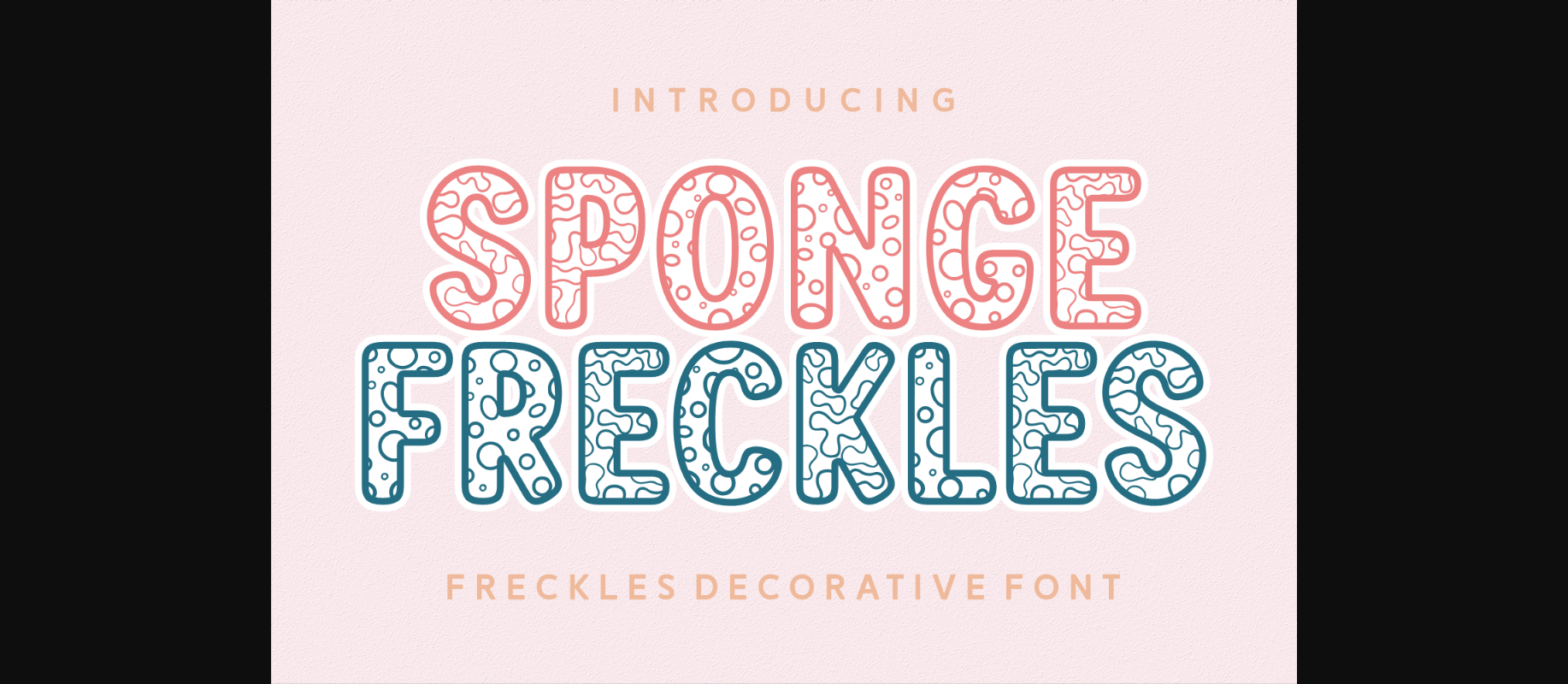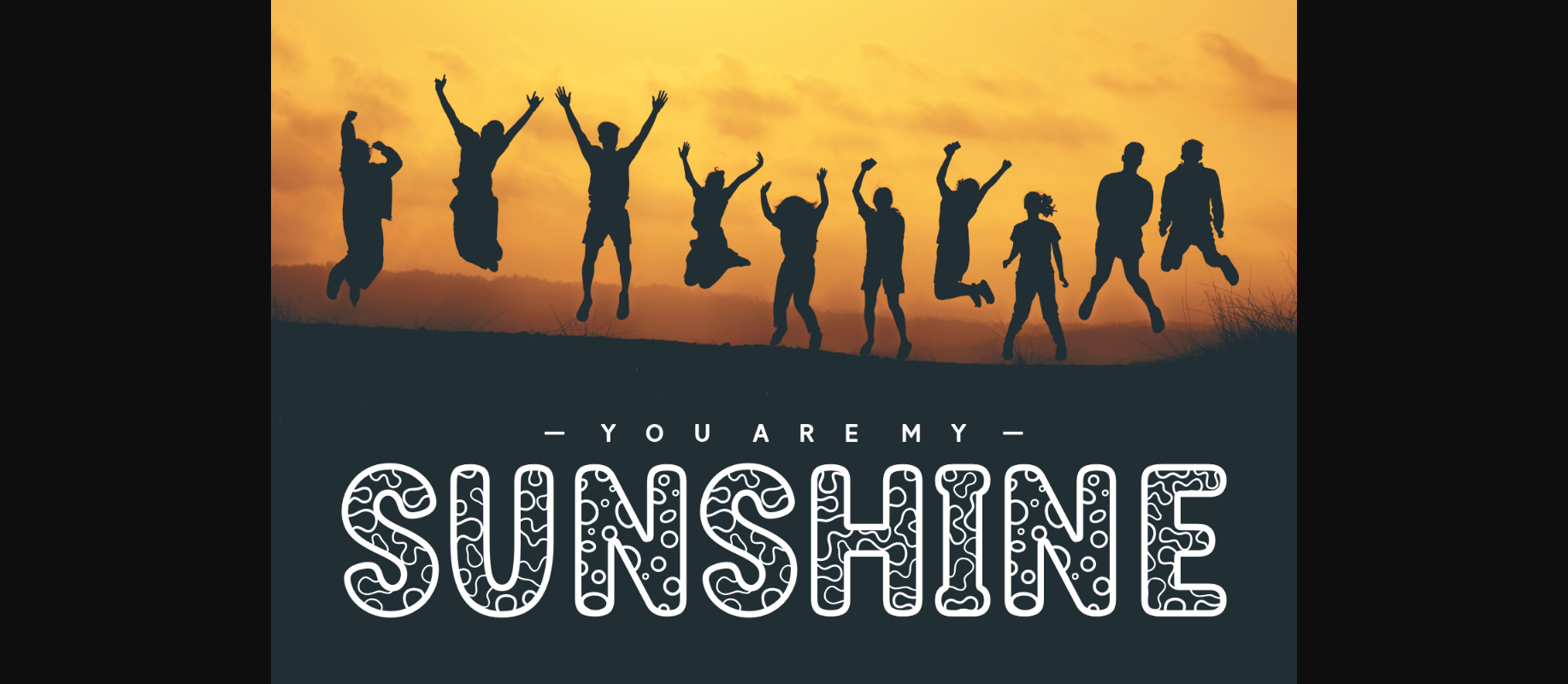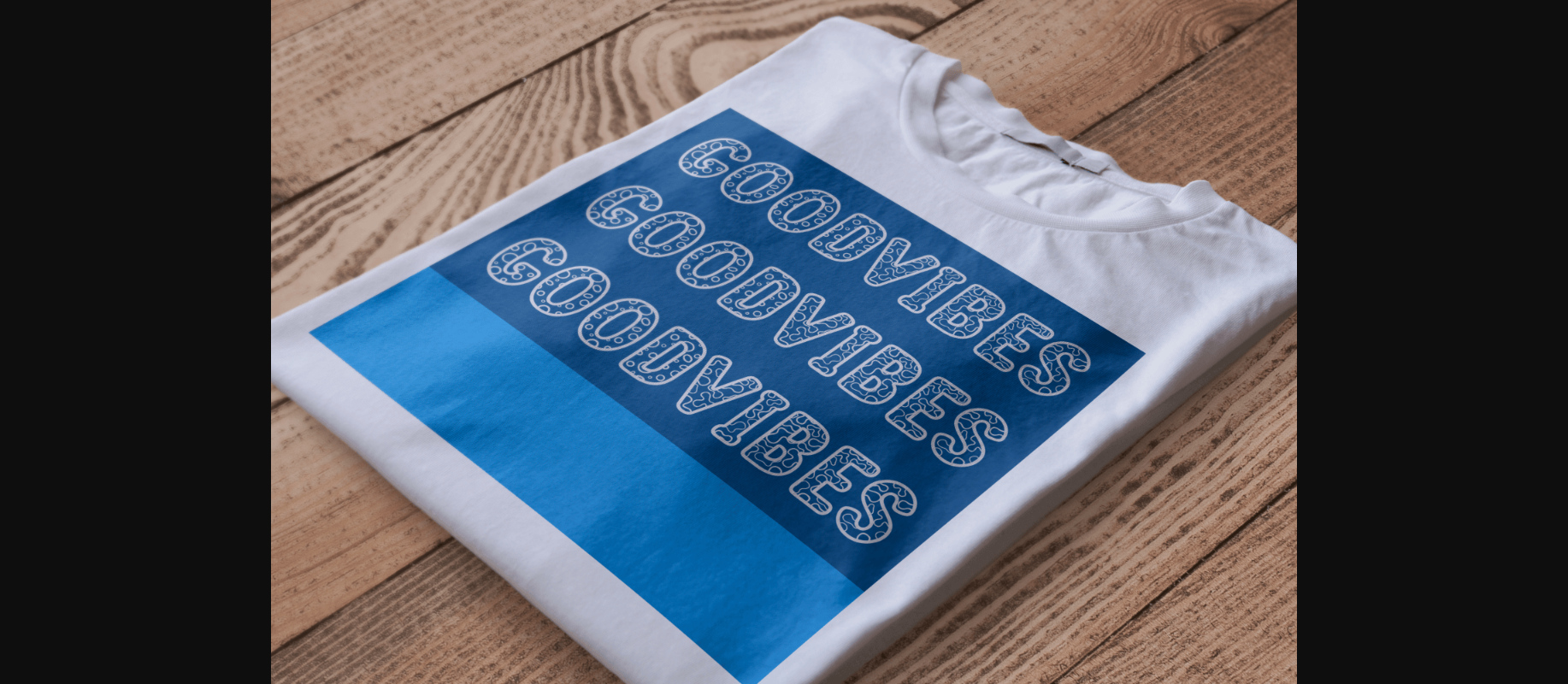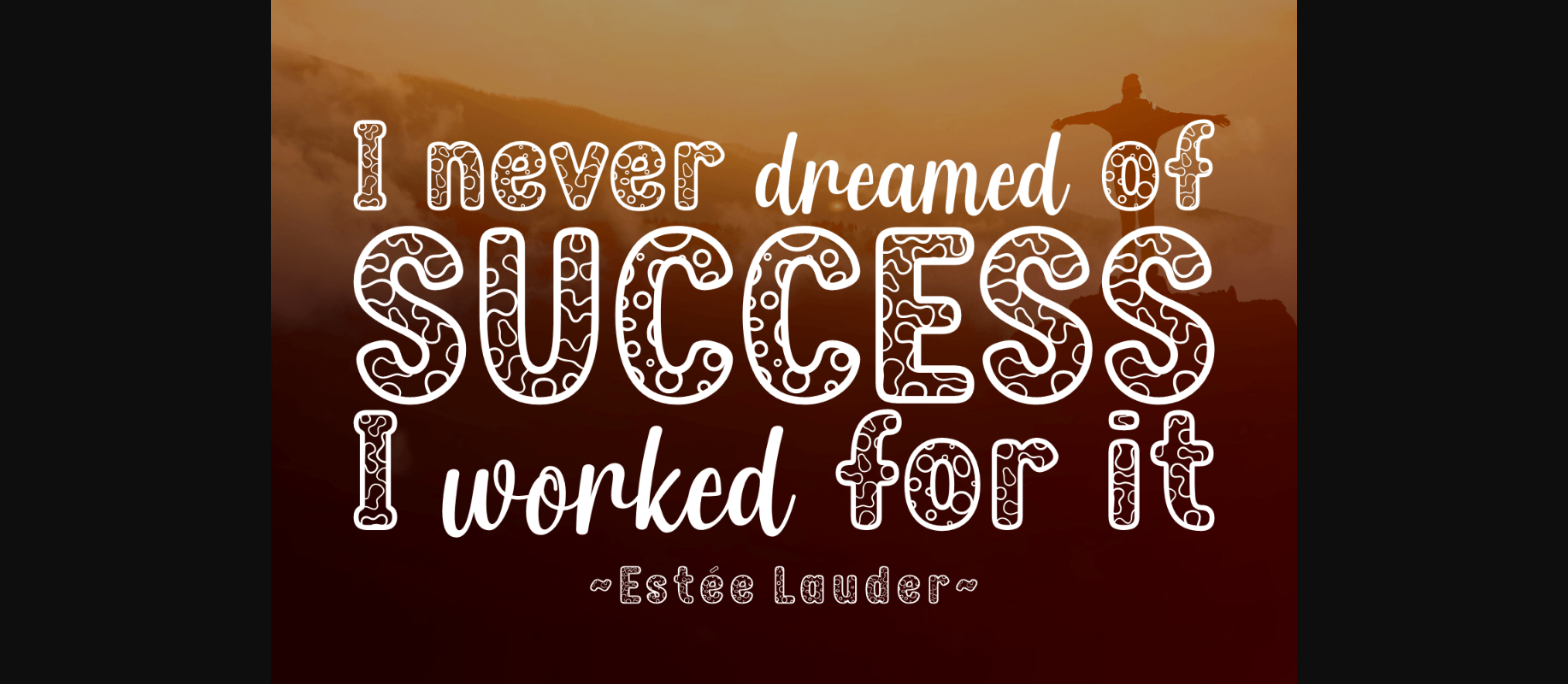
About Sponge Freckles Font
Sponge Freckles is a unique and funky decorative font. Each character features a joyful pattern made of squiggly lines that will add a touch of playfulness to your next project! Use it on your most creative product packaging, apparel designs, storybooks, covers, wedding designs, branding projects, and many more!